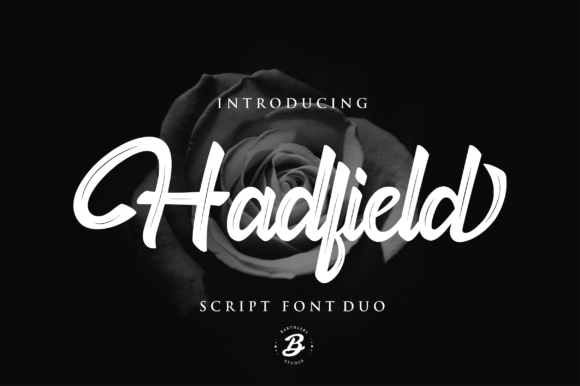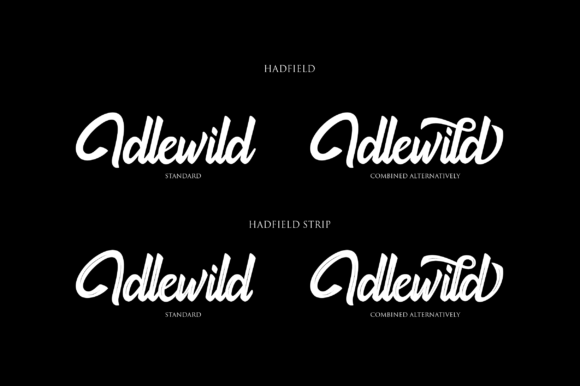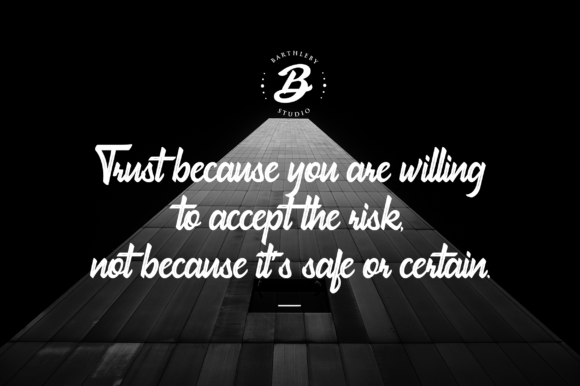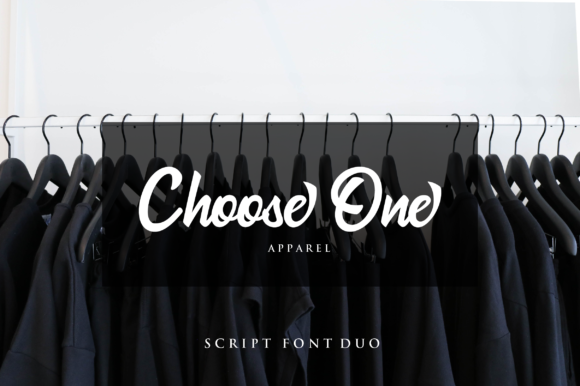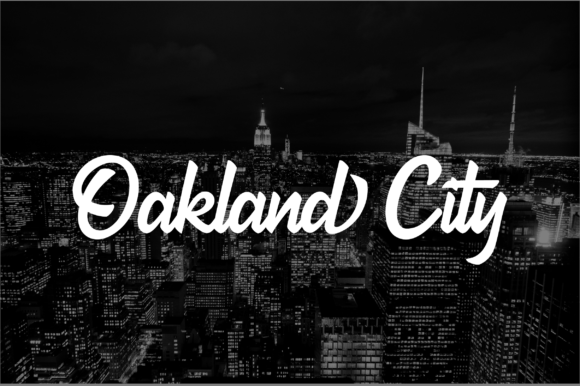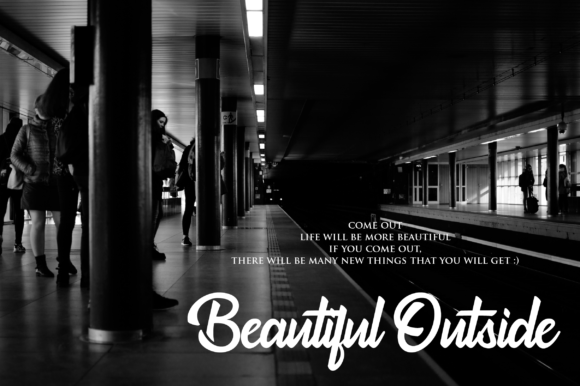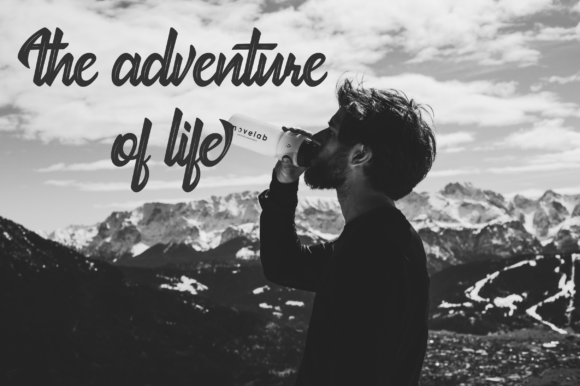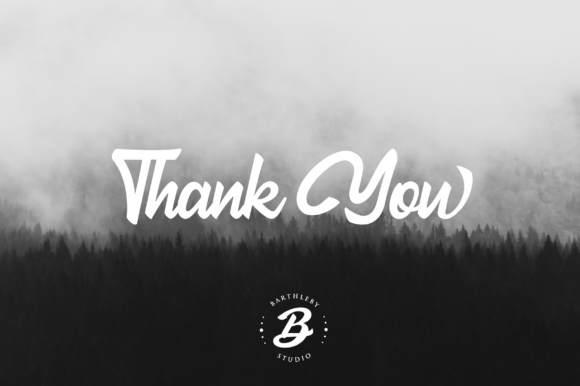
Hadfield Script Font
About Hadfield Script Font
Hadfield is a modern script font that comes in two variations; strip and regular.
It is suitable for various purposes such as watermarks, posters, social media posts, logos & branding, product designs, labels, and more.